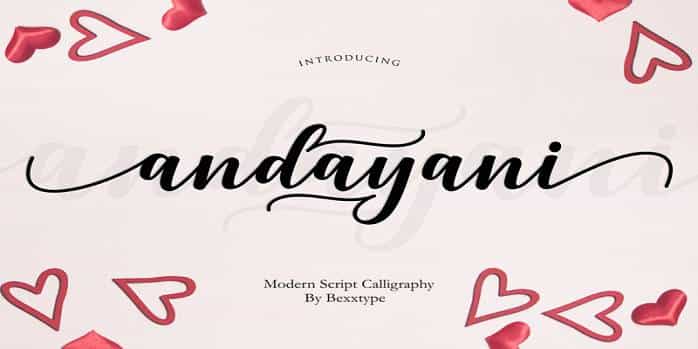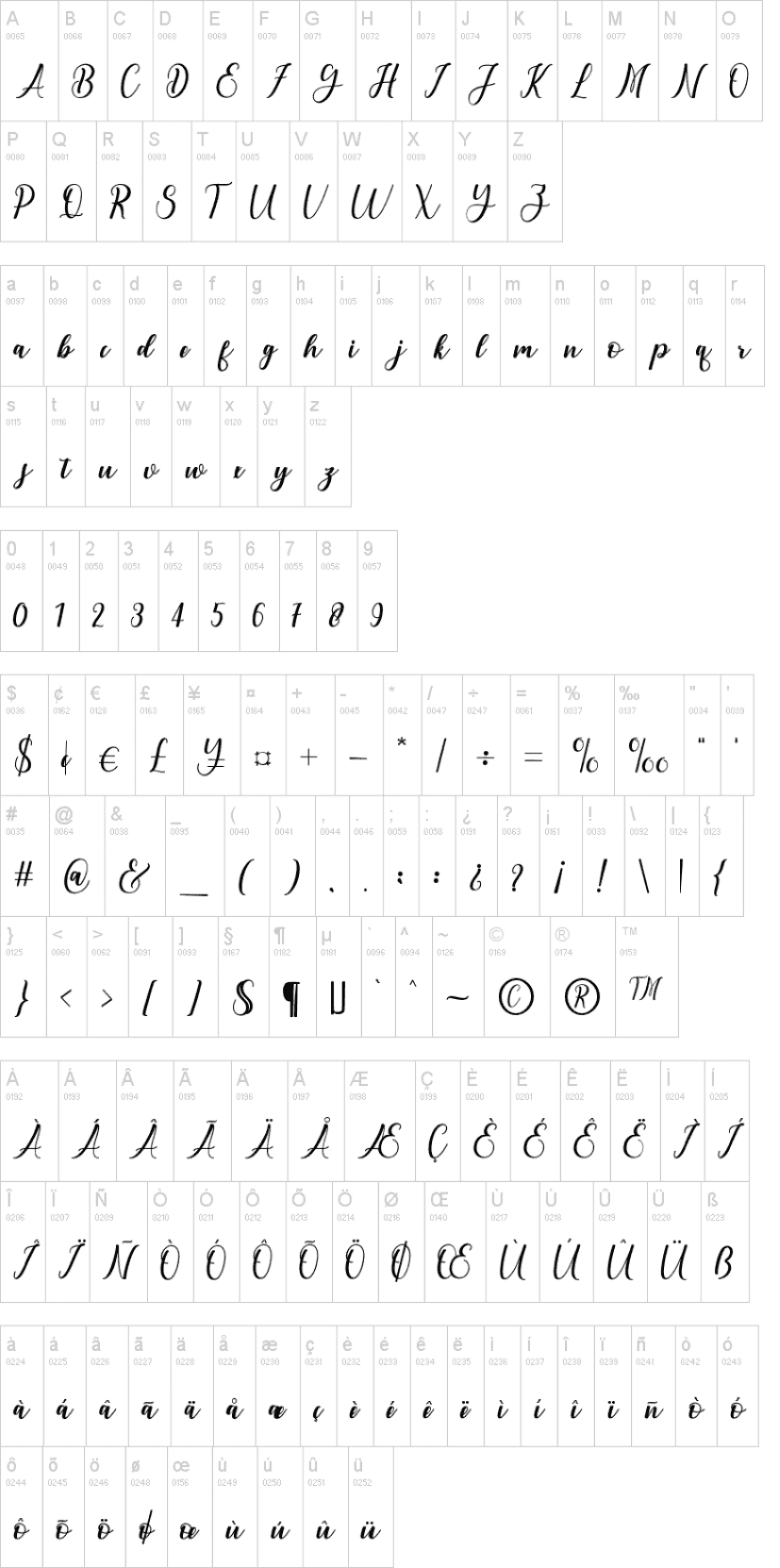
Andayani Script – The new Andayani Script is a fresh and modern script with a handmade calligraphy style, fancy characters and a dancing baseline!So pretty on an invite like greeting cards, branding materials, business cards, quotes, posters and whatever else!! Andayani Script is equipped with 543 glyphs. The alternative characters were set in several Open Type features like Swash, Stylistic Sets, Stylistic Alternates, Contextual Alternates.